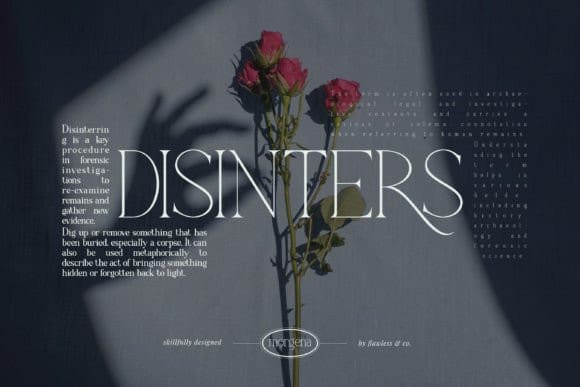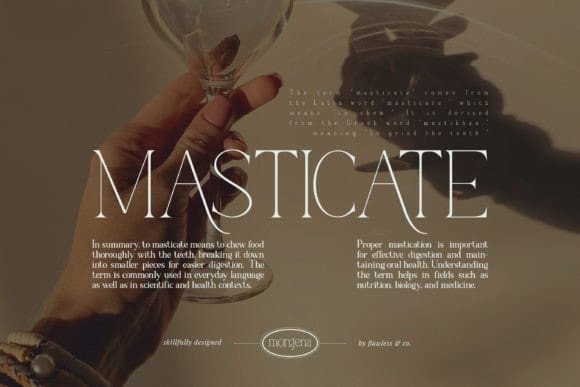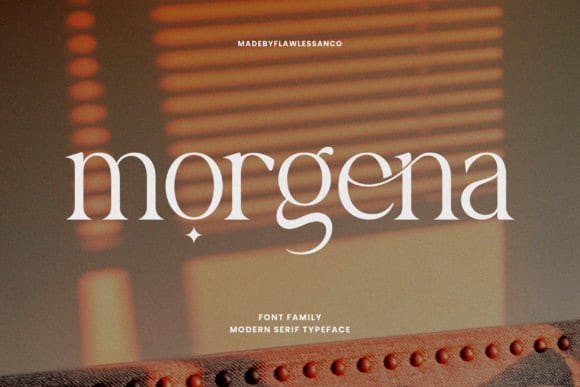
Morgena Font
Morgena Font a comprehensive typeface that goes beyond conventional limits. This font family is a symphony of styles, offering Thin, Extra Light, Light, Regular, Medium, Semi-Bold, and Bold variants, allowing you to craft designs that resonate with precision and personality.